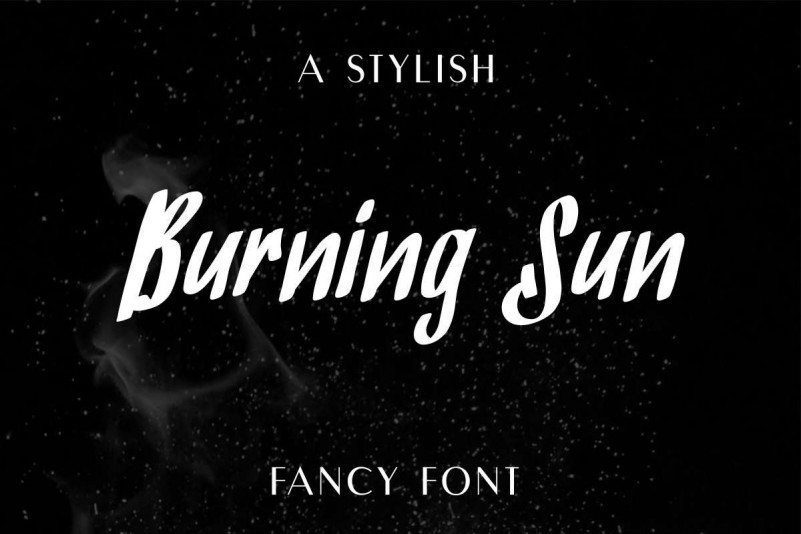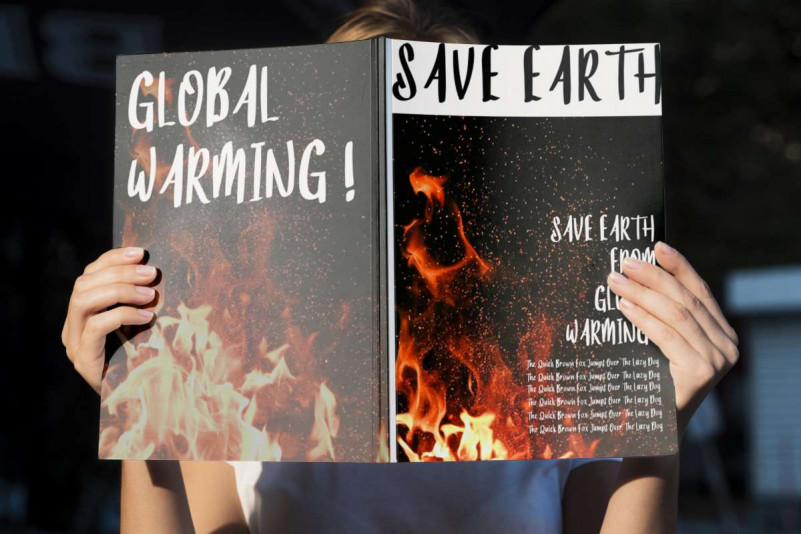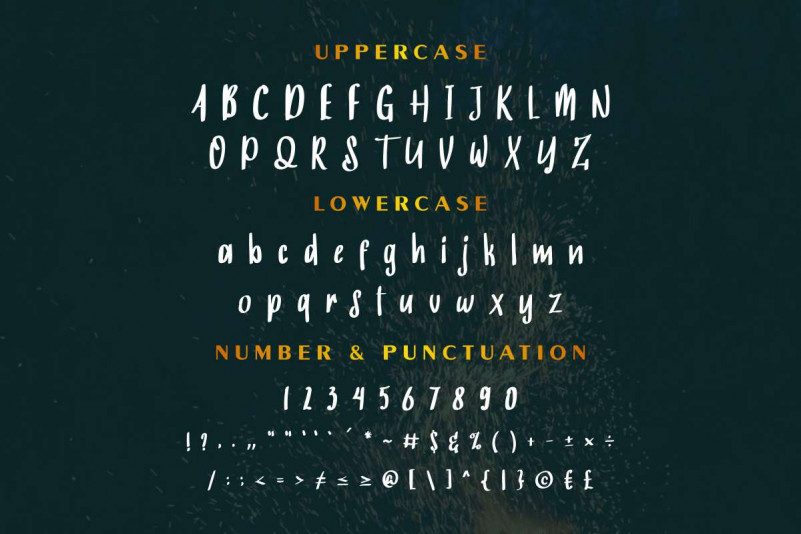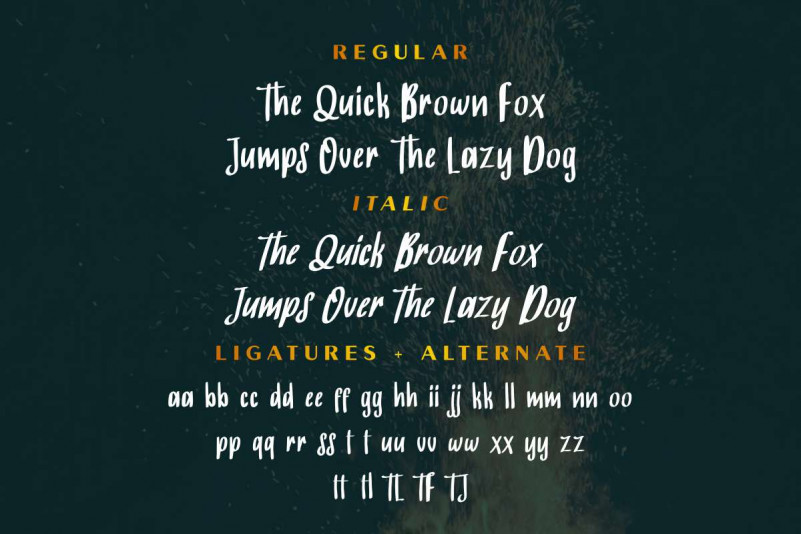
BurningSun Marker Script Font
Introducing our newest font : BurningSun Font! It is a Marker Script Font! BurningSun is a new modern decorative handwritten script font with marker look brush lettering. It has a unique, elegant, and exclusive style. Great for many industries and projects : Wedding, professional, person name, signature, modern, law firm, makeup artist, photography, travel, hotel, fashion, cafe, cake-food etc